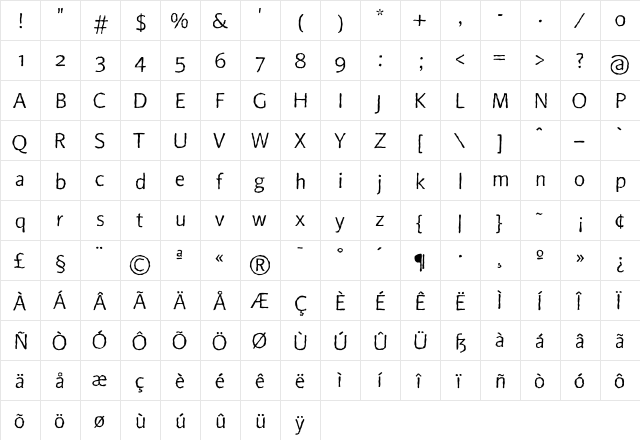
BeoSans Regular
| Foundry | Copr. Letterror, Just van Rossum |
Design Context for BeoSans Typeface
BeoSans is a composed and adaptable typeface that performs quietly and consistently across a wide range of design contexts.